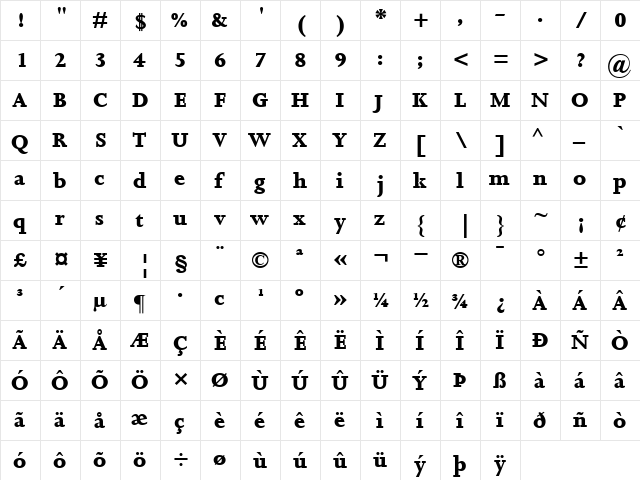
JoannaMT-ExtraBold Extra Bold Font Preview
JoannaMT-ExtraBold Extra Bold
Design Context for JoannaMT-ExtraBold Typeface
JoannaMT-ExtraBold takes a measured approach to typography — its balanced proportions and neutral character make it a reliable workhorse for both digital and print work. The heavy weight commands attention and anchors typographic hierarchies.